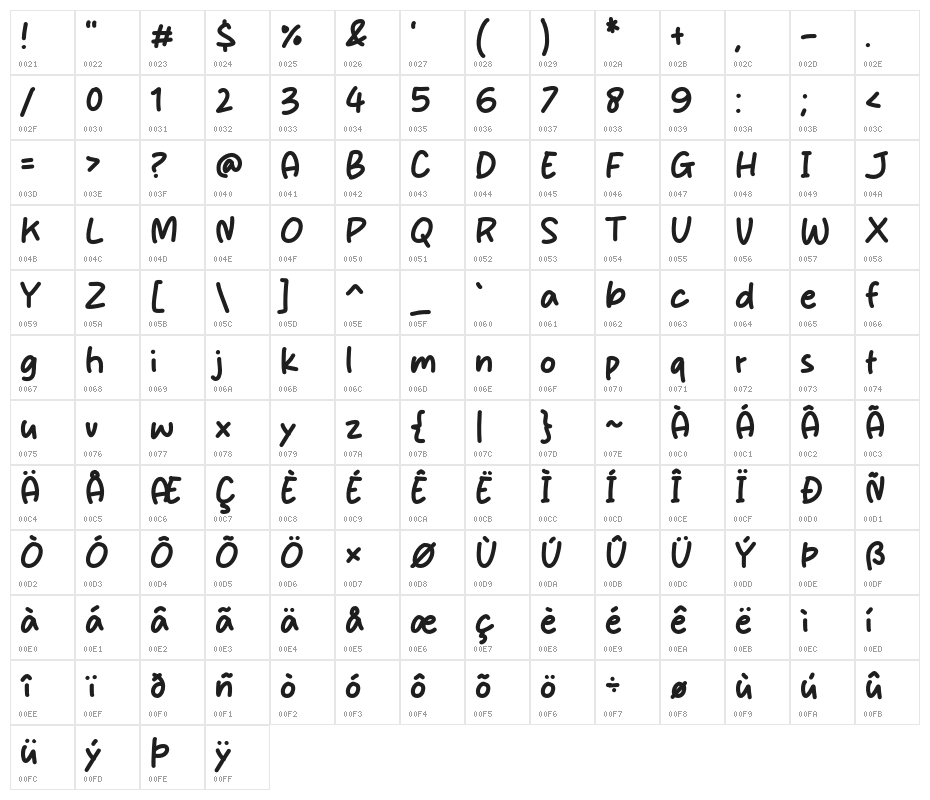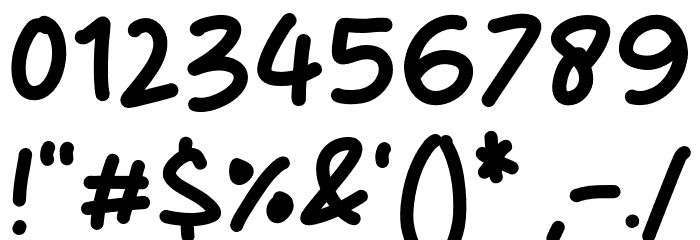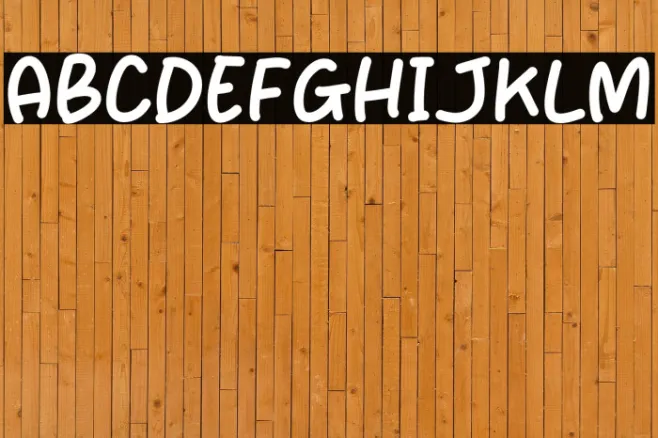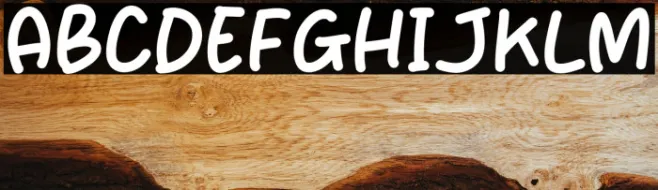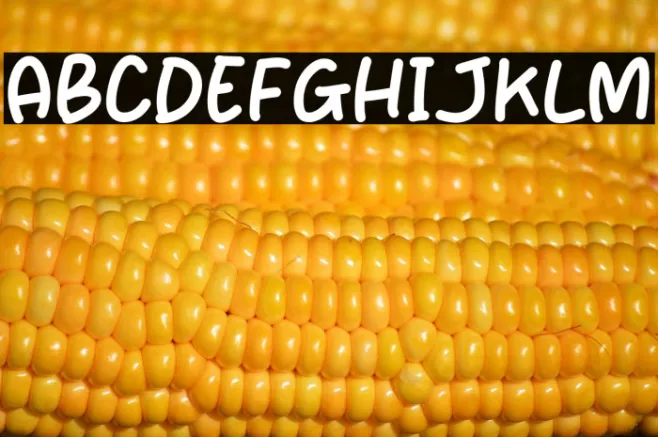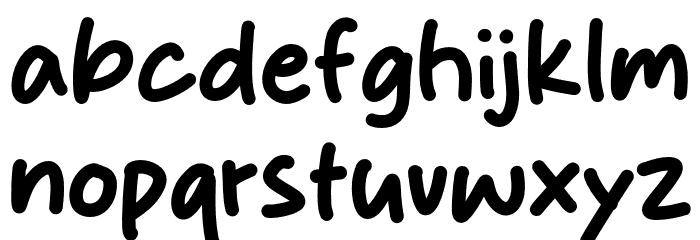
Smile Nice Font
Smile Nice Description
This playful and friendly font features rounded, bold characters that give off a casual and approachable vibe. The letters are slightly irregular, mimicking a handwritten style that adds a personal touch to any design. The strokes are consistent in thickness, providing a uniform appearance that enhances readability. The font includes a full set of uppercase and lowercase letters, numbers, and a variety of special characters, making it versatile for different uses. Its informal style is perfect for projects that aim to convey warmth and friendliness.
| Overall Style | Casual |
| Use Case | Headlines, Logos, Informal Text |
| Proposed Projects | Ideal for children's books, greeting cards, casual branding, and playful social media graphics. |